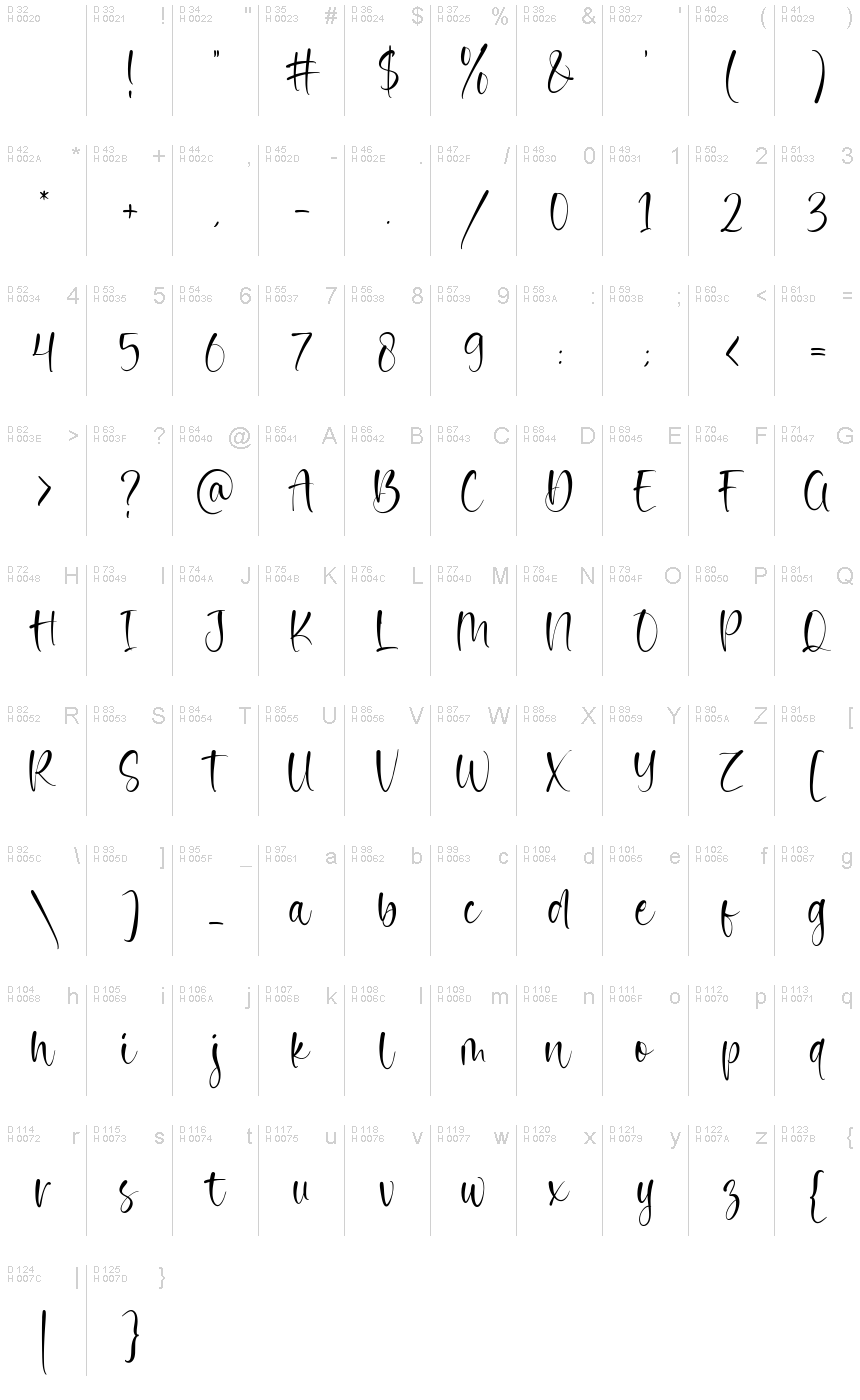
Noble Dream
Noble Dream font by Letterative Studio enchants with its elegant monoline handwritten style. Its fluid, graceful strokes evoke a sense of sophistication, effortlessly blending the traditional charm of handwriting with contemporary flair. This font's delicate curves and striking appearance make it ideal for captivating headlines, wedding invitations, and branding projects seeking a touch of personalized elegance.
Perfectly suited for creative endeavors, Noble Dream font transforms everyday designs into memorable visual stories. Its unique aesthetic is adaptable to various contexts where elegance is paramount. Explore the possibilities with this free font and enhance your design repertoire-download it today to infuse your projects with timeless beauty.